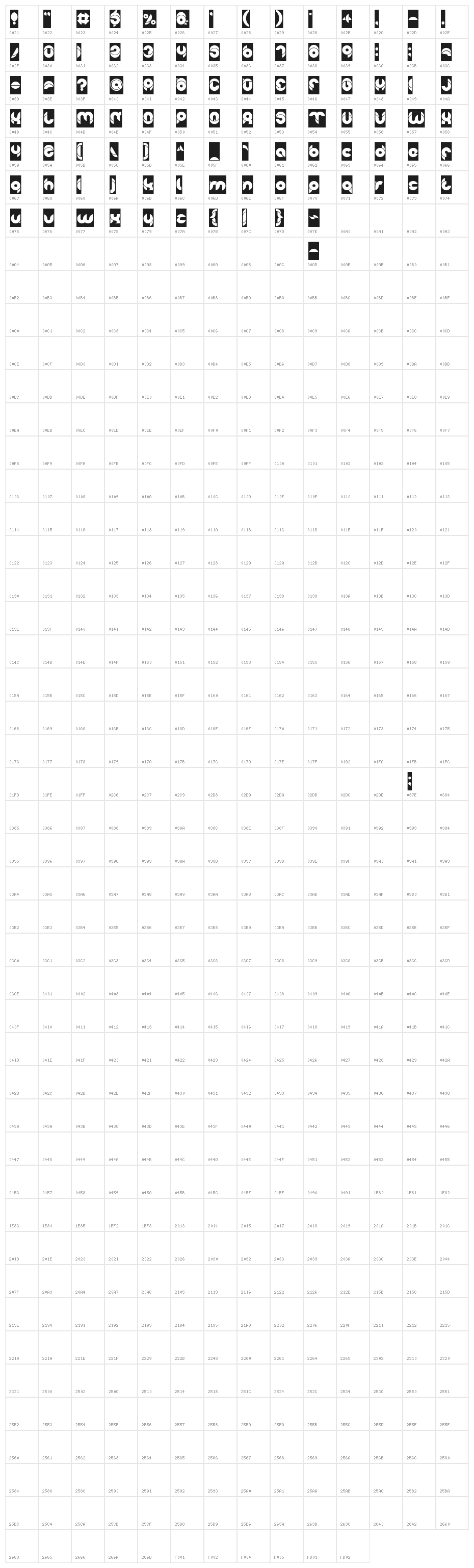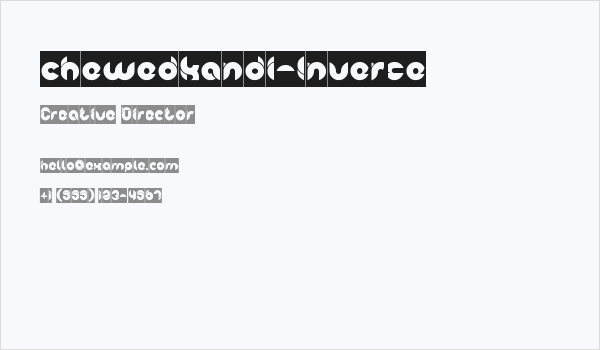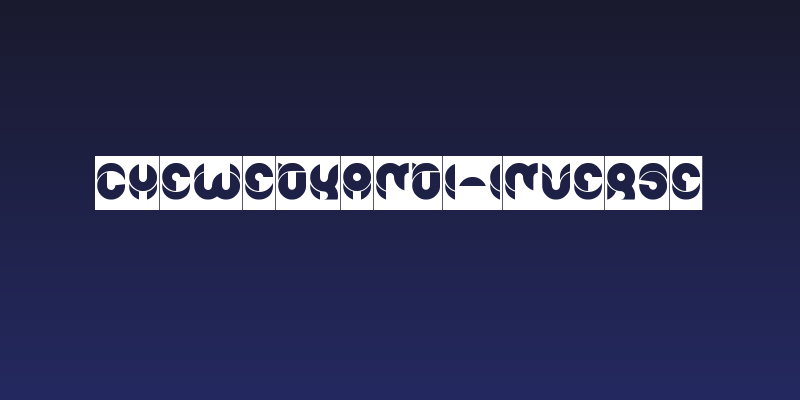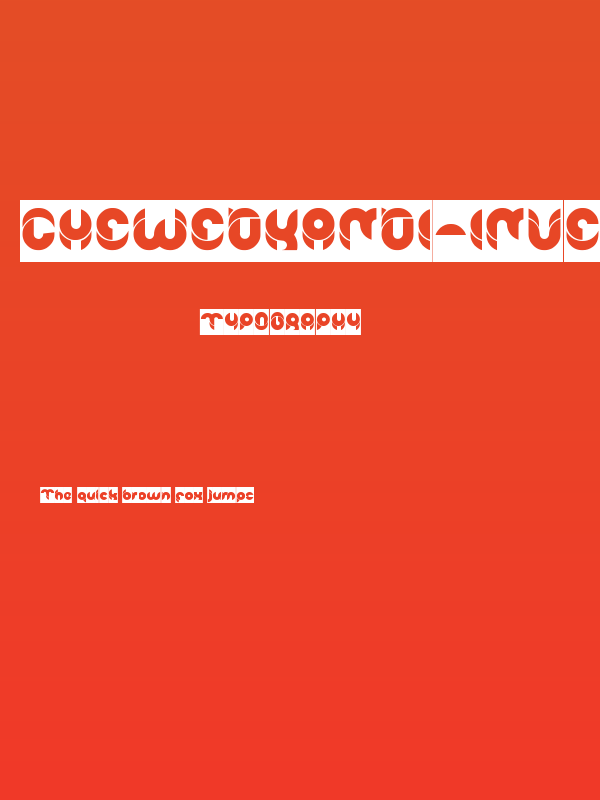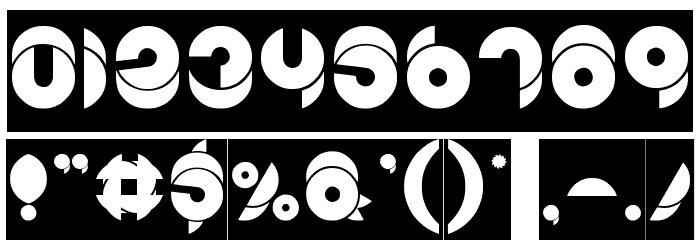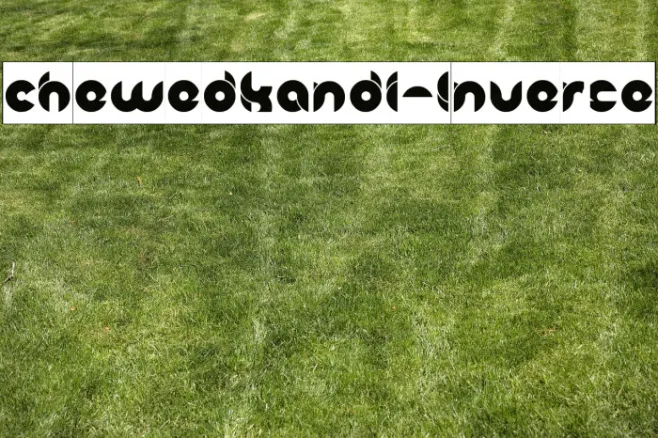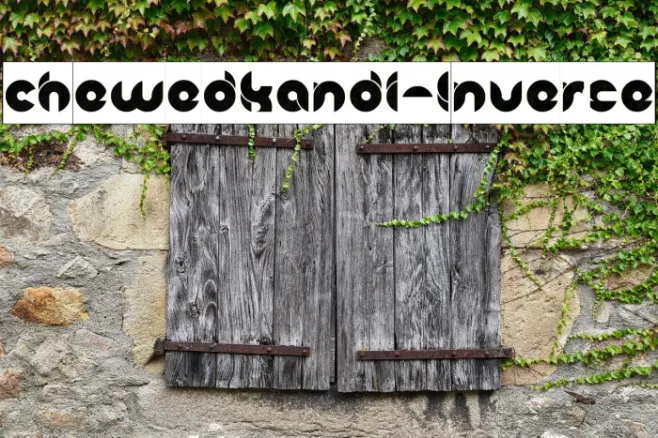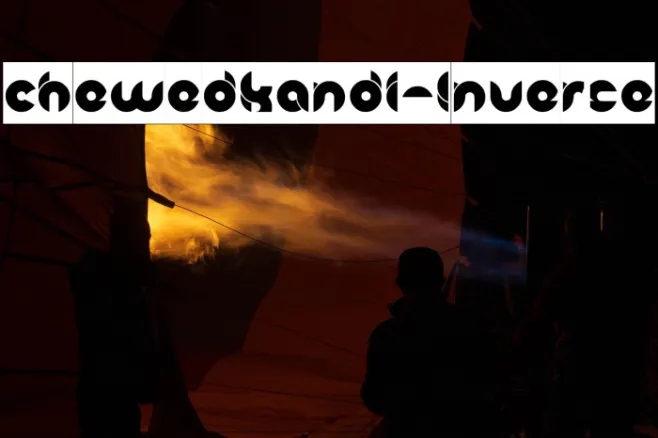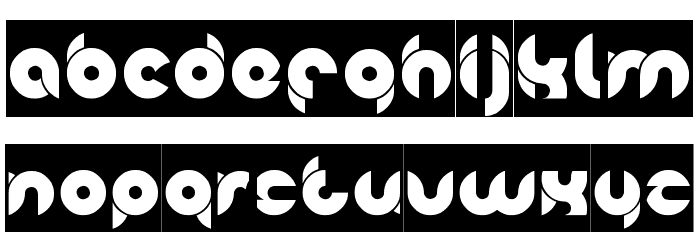
chewedkandi-Inverse Font
chewedkandi-Inverse Description
This font features a highly geometric and abstract design, characterized by its circular and semi-circular shapes that form each letter and number. The use of negative space is prominent, creating a striking visual effect that is both modern and artistic. The characters are bold and have a uniform thickness, contributing to a cohesive and balanced appearance. The font's unique style makes it stand out, with each character appearing as a piece of modern art. Its design is perfect for projects that require a futuristic or avant-garde aesthetic.
| Proposed Projects | This font is perfect for use in branding, posters, album covers, and any project that requires a modern, artistic touch. |